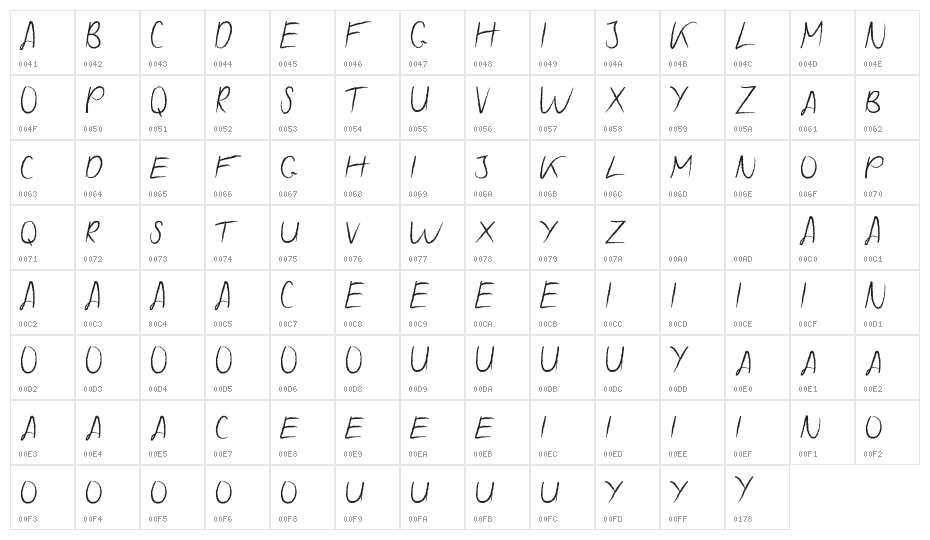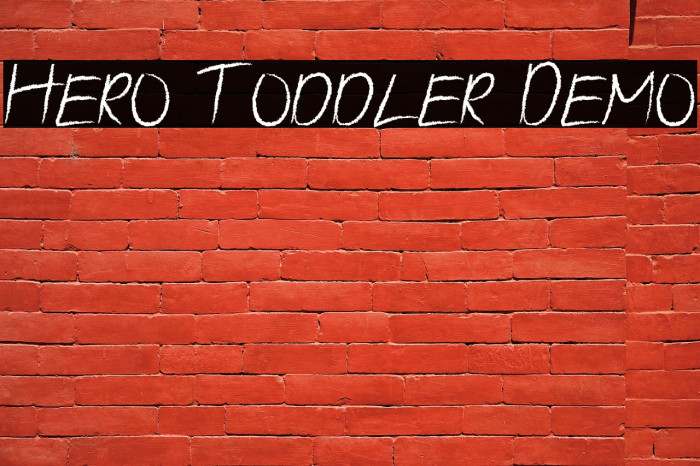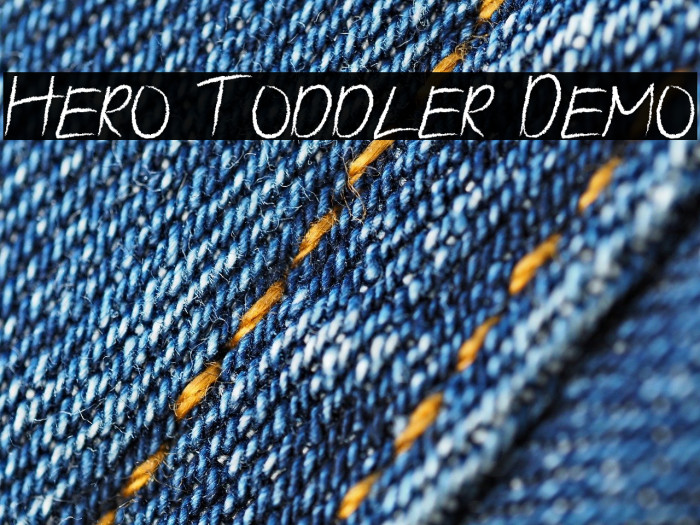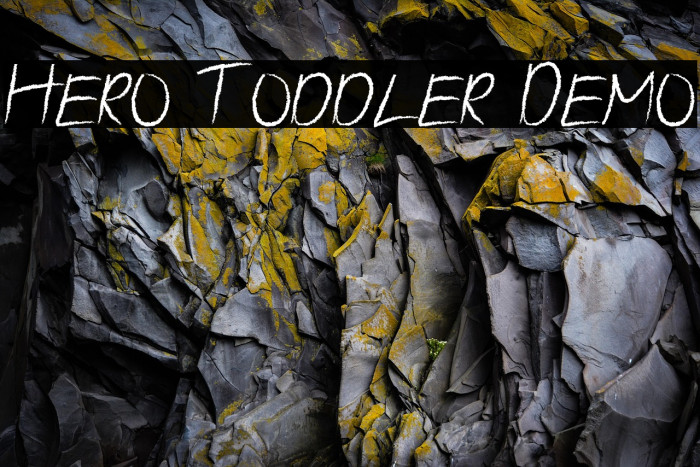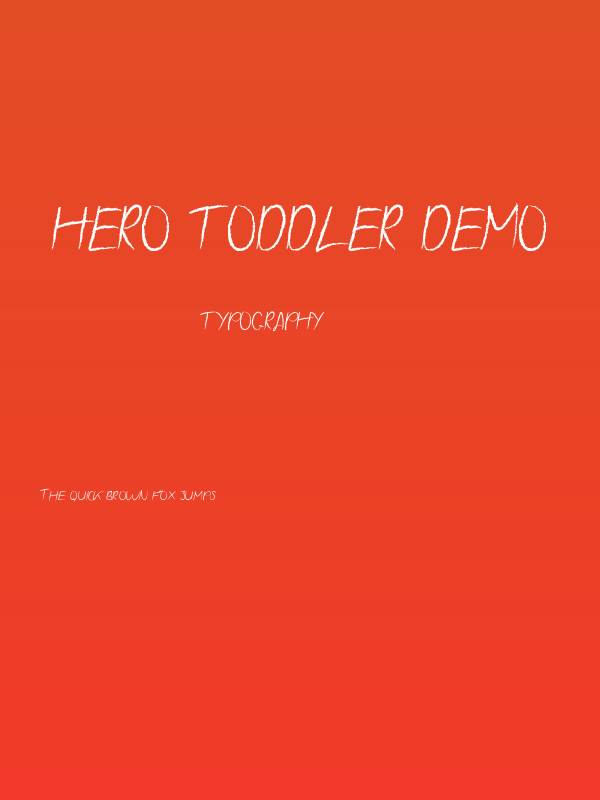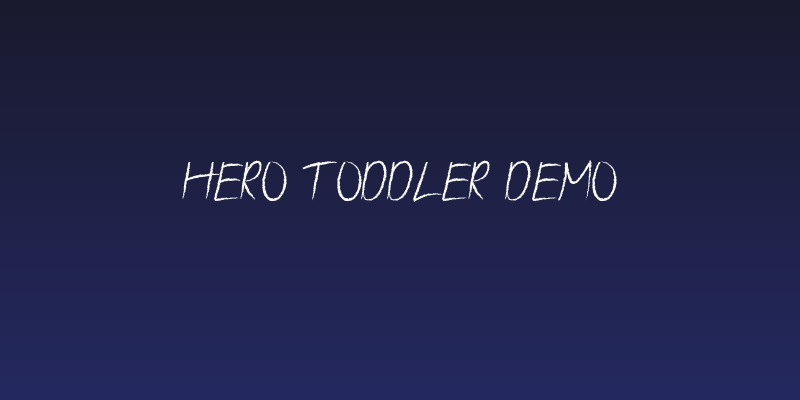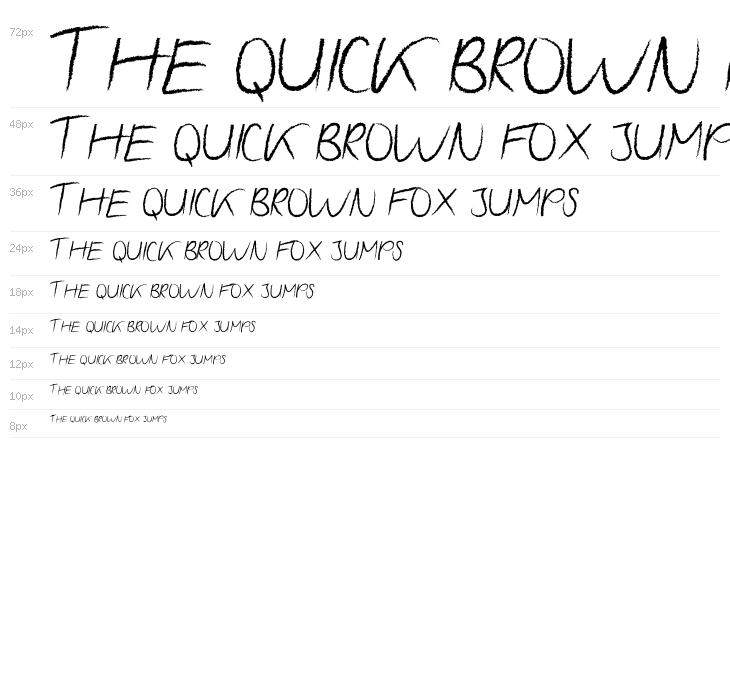
Hero Toddler Demo Font
Hero Toddler Demo Description
This font exudes a playful and energetic vibe, reminiscent of a child's scribbles with a crayon. The strokes are uneven and dynamic, giving it a hand-drawn appearance. The letters are slightly slanted, adding to the casual and informal feel. The uppercase and lowercase letters maintain a consistent style, with exaggerated curves and loops that enhance its whimsical nature. The overall texture is rough, with a sketch-like quality that adds depth and character. This font is perfect for projects that require a touch of creativity and spontaneity.
| Proposed Projects | Ideal for children's book covers, playful branding, casual invitations, and creative posters. |